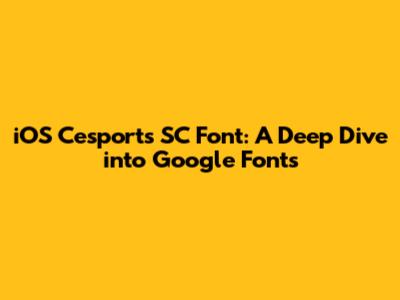
Hey guys! Ever wondered about the iOS Cesports SC Font? If you're knee-deep in app development or just a design enthusiast, you've probably stumbled upon this font. It's a key element in creating that sleek, modern look that iOS apps are known for. And guess what? This article is your ultimate guide to understanding and using the iOS Cesports SC Font, especially when paired with the vast library of Google Fonts. We'll explore everything from the font's characteristics and its role in iOS design to the nitty-gritty of integrating it into your projects. So, buckle up, because we're about to dive deep into the world of typography!
Let's start by clarifying what we're talking about. The iOS Cesports SC Font, or a font that closely resembles it, is often used to give applications a distinct visual identity, providing a clean and contemporary feel. This font family, often a variation of system fonts, enhances readability and contributes to the overall user experience. It's not just about picking a font; it's about making a statement, crafting a digital space that feels both intuitive and visually appealing. In the world of iOS, this font family can influence how users perceive the brand, making it a powerful tool for designers. The correct font can draw attention, convey the right message, and improve the application's overall look. It is often a key element in establishing the app's brand identity. When it comes to the technical side of things, understanding how to effectively implement and integrate this font is crucial, especially when working with Google Fonts. It is a good practice to ensure that the font is accessible, loads quickly, and works seamlessly across different devices. In this context, the font choice must work harmoniously with other design elements to create an immersive and user-friendly experience, emphasizing the power of typography in digital interfaces. This allows designers to refine the app's user interface and reinforce the brand's identity.
Furthermore, the font’s aesthetic impact cannot be overstated. A well-chosen font has the potential to significantly improve the user’s experience. Typography helps establish a visual hierarchy, making content easier to navigate and more enjoyable to read. The iOS Cesports SC Font, with its modern and clean appearance, is perfectly suited to this task. The elegance of a font can be enhanced when it is paired with appropriate design elements. The use of this font, paired with compelling graphics and intuitive layouts, sets the stage for a delightful user experience. Therefore, it's not just about the font, but also about how the font is used. Proper implementation ensures that the font is readable and enhances the app's overall feel. Moreover, using the right typography can improve the app's accessibility. Clear, legible fonts are crucial for users of all abilities. Ultimately, a font should support a pleasant user experience. By carefully selecting and integrating the iOS Cesports SC Font, you're not just choosing a typeface, you're investing in a more engaging and user-friendly design. Typography shapes how users perceive and interact with your app. It has the ability to affect the impression of the app, making it look professional and reliable. Now, let’s explore how Google Fonts can help you achieve this. We'll see how you can bring this design to life using Google's extensive library, as well as ensure that your iOS app looks great and feels incredible. Remember, the goal is not just to use a font, but to enhance the entire app experience.
Exploring Google Fonts for iOS Cesports SC Font Alternatives
Alright, let's talk about Google Fonts. It is a massive, free, open-source collection of fonts. It's an absolute goldmine for designers and developers, offering a wide array of typefaces to suit any project. So, how can you leverage Google Fonts to find alternatives or similar fonts to the iOS Cesports SC Font? Well, you're in luck, because Google Fonts has some fantastic options that mimic that clean, modern aesthetic.
When searching for alternatives, think about what makes the iOS Cesports SC Font appealing. It typically has a clean, sans-serif design, emphasizing readability and a contemporary feel. Fonts like Roboto, Open Sans, and Lato are excellent starting points. They share the same traits of clarity and simplicity. These fonts are widely available and well-suited for the iOS environment. They'll help you create a similar look and feel in your app. When selecting, it's essential to consider the font's weight, style, and overall character. It is ideal to ensure that the font family provides the versatility needed for your design. Each font offers different weights and styles. This enables the creation of an effective visual hierarchy. The chosen font must be compatible with different screen sizes and resolutions.
Another trick is to use Google Fonts' filtering and comparison tools. You can filter fonts by their properties, such as serif or sans-serif, and even compare different fonts side-by-side. This allows you to find fonts with similar characteristics. These tools will help you identify the perfect font for your project, making it easier to match the iOS Cesports SC Font or create a unique look. The process of exploring fonts requires thorough research to find the perfect match. Remember, the goal is not just to find a font that looks similar, but also to ensure that it enhances the overall user experience. This means ensuring that the font is legible, accessible, and complements the app's design. The key is to experiment. Try out different fonts, test them in your app, and see what works best for your design. Also, consider the performance aspects of each font. Some fonts are more lightweight than others, which affects loading times. So, always keep your users' experience in mind when making your final decision. Consider the specific design requirements of your project. By carefully considering all of these factors, you can effectively use Google Fonts to find suitable replacements for the iOS Cesports SC Font. The end result is an app that looks great and provides an outstanding user experience.
Next, you'll have to add the font to your project's Info.plist file. Open your Info.plist file and add a new key called Fonts provided by application. In the value for this key, add an array. Inside this array, add the name of your font file. For example, if your font file is 'Roboto-Regular.ttf', you'll add 'Roboto-Regular.ttf' to the array. Once you have added the font to your project and your Info.plist file, you can start using it in your code. You will need to use the font's name in your code. To do this, you can use the UIFont class. For example, if you want to use the Roboto font in a label, you would write something like: `let myLabel = UILabel() myLabel.font = UIFont(name: